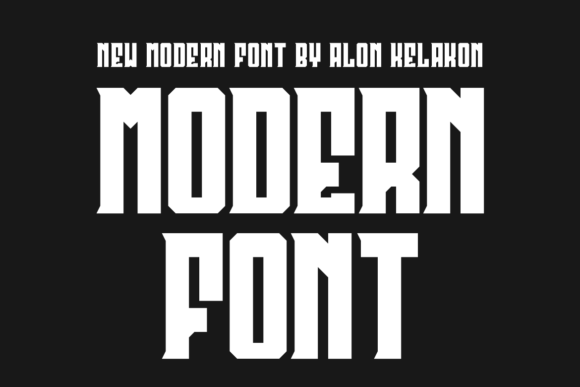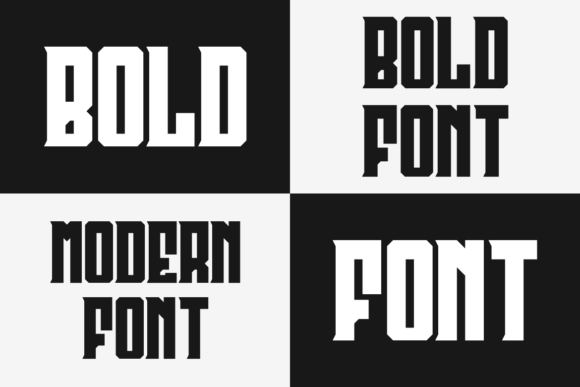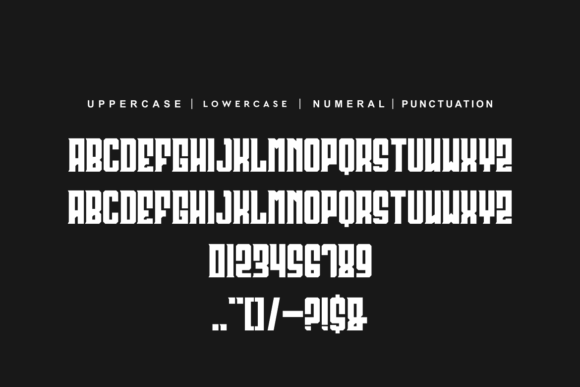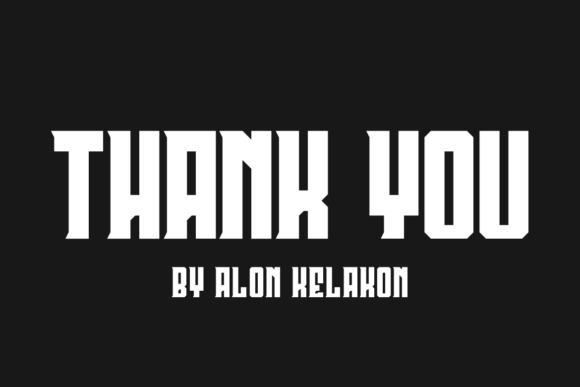
Unlock Your Creativity with the Jambronk Font
Have you ever been stuck in front of your computer, staring at a blank screen, trying to come up with the perfect design for your latest project? You’ve got an idea in your head, but it’s just not translating onto the page. You need a spark to set your creativity ablaze, and that’s where the Jambronk Font comes in.
This cool and modern condensed display font is designed to add a touch of sophistication and elegance to your creative projects. Whether you’re working on a branding campaign, a social media post, or a presentation, the Jambronk Font is the perfect addition to take your design to the next level.
For designers, the Jambronk Font is a valuable tool in their arsenal. Its versatility and modern feel make it a great choice for a wide range of projects, and its condensed style allows for maximum impact in a small space.
Jambronk Font Key Features
- Unique Characteristics: This font boasts an unconventional blend of organic and geometric elements, resulting in a visually striking and attention-grabbing appearance.
- Font Styles: The font family includes various styles, such as Regular, Bold, Italic, and Bold Italic, providing designers with ample options to convey different tones and emotions.
Designer Review: Jambronk Font
Overall, I have mixed feelings about the Jambronk Font. There are some things that work well, but also some limitations that might make it less appealing to some users.
- Unique and Playful Character: The Jambronk Font has a unique personality that can add a playful touch to any design. Its quirky characters can help to create a fun and engaging atmosphere.
- Good Legibility: The font is generally easy to read, even at smaller sizes. This makes it a good choice for body text or headings where legibility is important.
- Customization Options: The font offers a range of customization options, including weight, style, and ligatures. This allows designers to fine-tune the font to suit their specific needs.
- Not Suitable for Formal Designs: The Jambronk Font is best suited for informal or creative projects. Its playful personality might not be suitable for formal or corporate designs.
- Limited Unicode Support: The font has limited support for certain languages and characters. This might be a problem for designers working on international projects.
- Not Ideal for Small Text: While the font is generally easy to read, it can become difficult to read at very small sizes. This might limit its use in situations where text needs to be displayed at very small sizes.
In conclusion, the Jambronk Font is a unique and playful font that can add a fun touch to any design. However, it may not be the best choice for formal or corporate designs, and its limited unicode support and small text legibility might be a problem for some users.
Some tips for getting the most out of Jambronk Font include:
– Use it sparingly to create a bold and eye-catching effect.
– Pair it with other fonts to create a unique and interesting combination.
– Experiment with different font sizes and styles to achieve the desired effect.
Some common use cases for Jambronk Font include:
– Creating eye-catching social media posts and ads.
– Designing unique and memorable branding materials.
– Adding a touch of personality to presentations and reports.